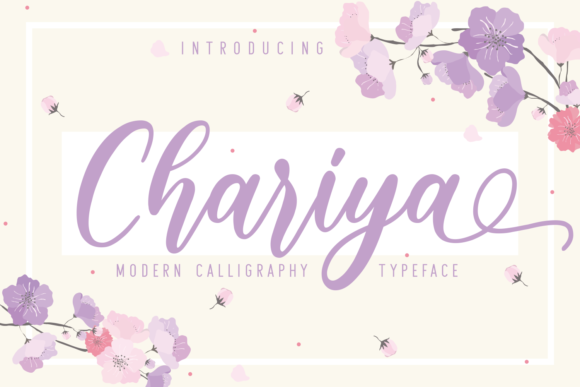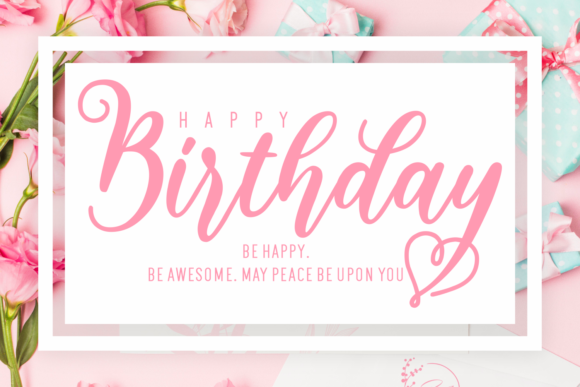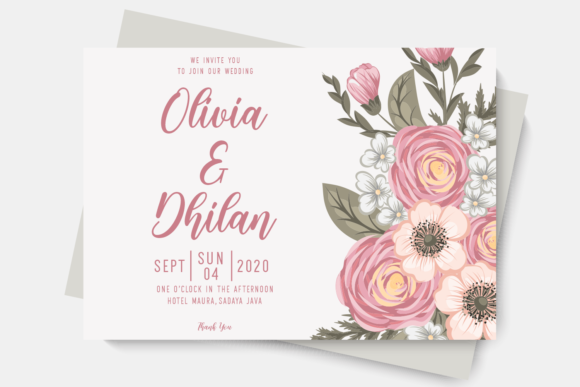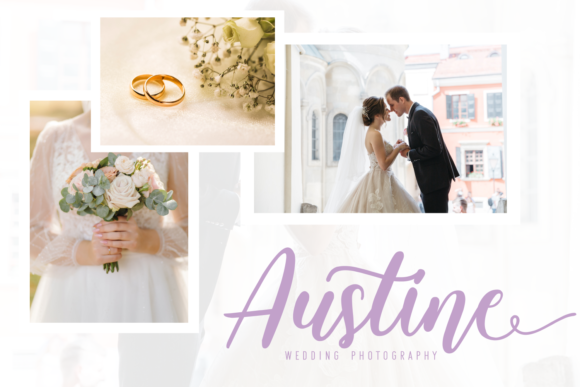
Chariya Font
About Chariya Font
“Chariya” sounds like a stunning handwritten font that brings elegance and grace to any design. Here are some key features that make it stand out:
Delicate and Elegant: The font’s delicate strokes and flowing design exude elegance, making it suitable for a wide range of sophisticated and refined designs.
Well-Balanced Characters: The carefully crafted characters of “Chariya” indicate attention to detail, resulting in a harmonious and aesthetically pleasing font.
Versatility: With its varying baseline, smooth lines, and stunning alternates, “Chariya” can be used in diverse creative projects, from wedding invitations to brand logos.
Timeless Appeal: The classic calligraphic influences combined with a contemporary touch ensure that “Chariya” retains its appeal across different design trends and styles.
Natural Feel: The font’s handwriting-like quality adds a sense of authenticity and human touch to designs, creating a personal and inviting atmosphere.
Sophisticated Branding: “Chariya” can be an excellent choice for luxury and high-end branding, communicating elegance and exclusivity.
Wedding Invitations: Given its elegance and flowing style, the font is likely to be a perfect fit for creating stunning wedding invitations that capture the couple’s love story.
Greeting Cards: Whether used for personal or business purposes, “Chariya” can bring warmth and sincerity to greeting cards, leaving a lasting impression on recipients.
Social Media Posts: The font’s charm and versatility make it well-suited for eye-catching social media graphics that engage followers and promote a cohesive brand image.
Subtle Alternates: The availability of stunning alternates within the font allows for creative experimentation, giving designers the opportunity to craft unique typographic compositions.
Smooth and Readable: Despite its intricate design, “Chariya” remains highly legible, ensuring that the message or text is conveyed clearly to the audience.
Refined Stationery: Whether for personal stationery or professional letterheads, the font adds an air of sophistication to printed materials.
Graceful Quotes: Use “Chariya” to present inspiring quotes and thoughtful messages, enhancing their impact through its elegant appearance.
Customization: The font’s varying baseline and alternates provide flexibility, allowing designers to tailor the typography to specific design needs.
Overall, “Chariya” appears to be a versatile and sophisticated font that brings a touch of elegance to various design projects. Its flowing and delicate style, paired with smooth lines and stunning alternates, offers designers the opportunity to create captivating and visually pleasing compositions. Whether used in print or digital media, “Chariya” can elevate designs and make them come alive with its timeless charm and graceful appeal.